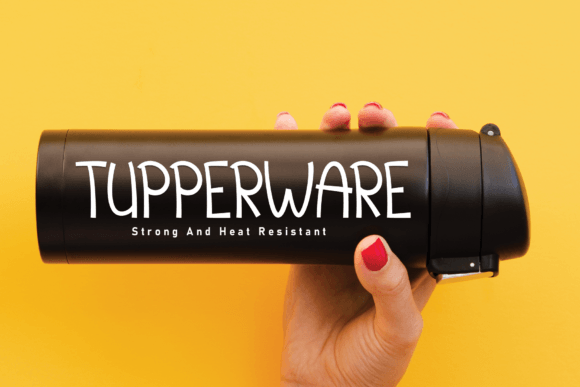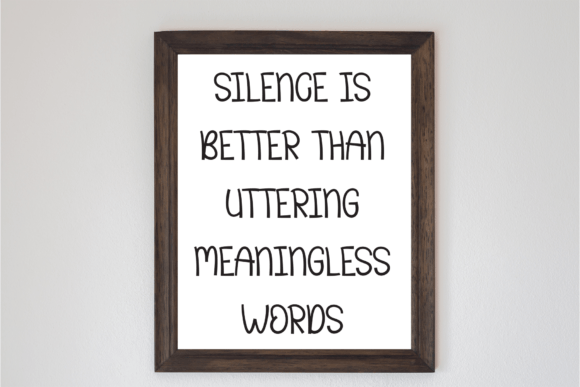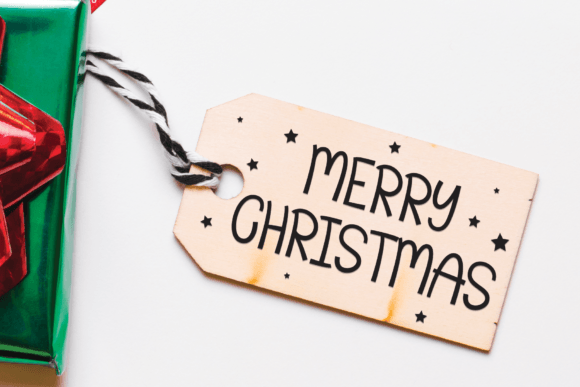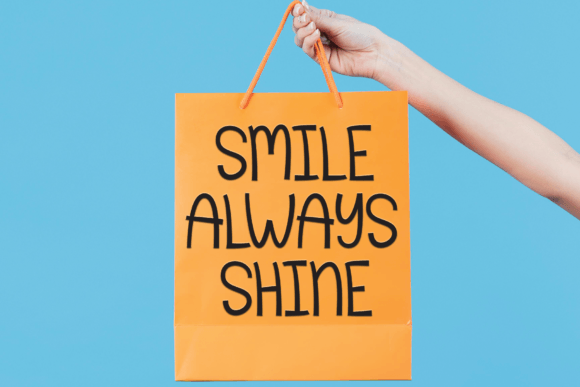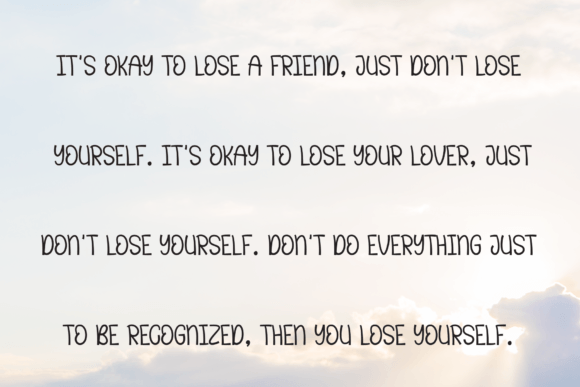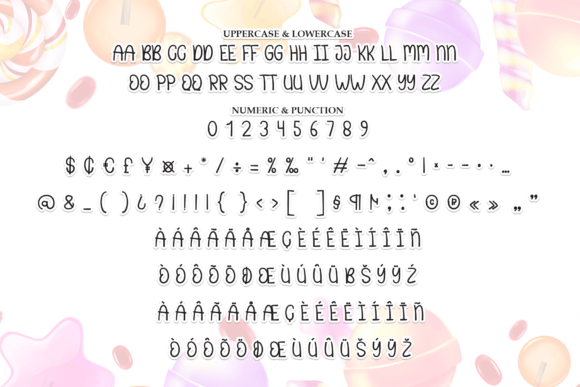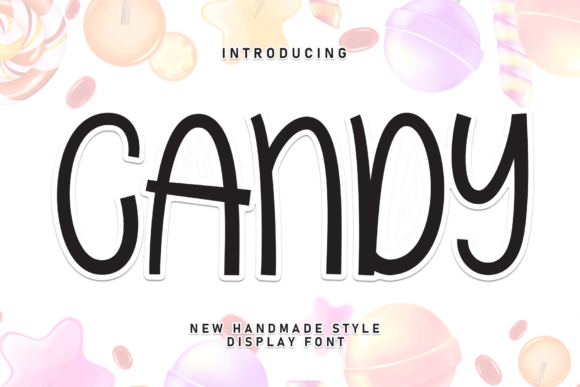
Candy Font: The Sweetest Addition to Your Design Projects
Are you looking for a font that can add a touch of sweetness and friendliness to your design projects? Look no further than the Candy font! This beautiful, handwritten font is perfect for creating wedding invitations, greeting cards, and other designs that require a fun and playful touch.
What is Candy Font?
Candy is a sweet and friendly handwritten font that is versatile and cute. It’s ideal for writing wedding invitations, cards, or any other design that might need a fun touch. The font is carefully crafted to provide a warm and inviting feel, making it perfect for a wide range of design projects.
Characteristics of Candy Font
The Candy font has several characteristics that make it a great addition to any design project. Some of its key features include:
- Handwritten style: The Candy font has a beautiful, handwritten style that gives it a personal and friendly touch.
- Versatile: The font is versatile and can be used for a wide range of design projects, from wedding invitations to greeting cards and more.
- Cute and playful: The Candy font has a cute and playful feel that makes it perfect for designs that require a fun touch.
- Easily readable: The font is easily readable, making it perfect for body text and headings.
Uses of Candy Font
The Candy font is perfect for a wide range of design projects, including:
- Wedding invitations: The font’s sweet and friendly style makes it perfect for wedding invitations and other wedding-related designs.
- Greeting cards: The Candy font is ideal for creating greeting cards for special occasions, such as birthdays, holidays, and more.
- Social media graphics: The font’s playful and fun style makes it perfect for social media graphics, such as Facebook posts and Instagram stories.
- Branding and packaging: The Candy font can be used for branding and packaging designs that require a friendly and approachable feel.
Benefits of Using Candy Font
Using the Candy font in your design projects has several benefits, including:
- Unique and creative designs: The font’s unique and creative style can help you create designs that stand out from the crowd.
- Emotional connection: The Candy font’s friendly and approachable style can help create an emotional connection with your audience.
Tips for Using Candy Font
Here are some tips for using the Candy font in your design projects:
- Use it for headings and titles: The Candy font is perfect for headings and titles, as it adds a touch of sweetness and friendliness to your designs.
- Pair it with other fonts: The font can be paired with other fonts to create a unique and creative design.
- Experiment with colors and textures: The Candy font can be used with a variety of colors and textures to create a unique and creative design.
- Use it for digital and print designs: The font can be used for both digital and print designs, making it a versatile solution for designers and crafters.
In conclusion, the Candy font is a sweet and friendly handwritten font that is perfect for adding a touch of sweetness to your design projects. Its versatile and cute style makes it ideal for a wide range of designs, from wedding invitations to greeting cards and more. With its easily readable style and emotional connection, the Candy font is a great addition to any design project.